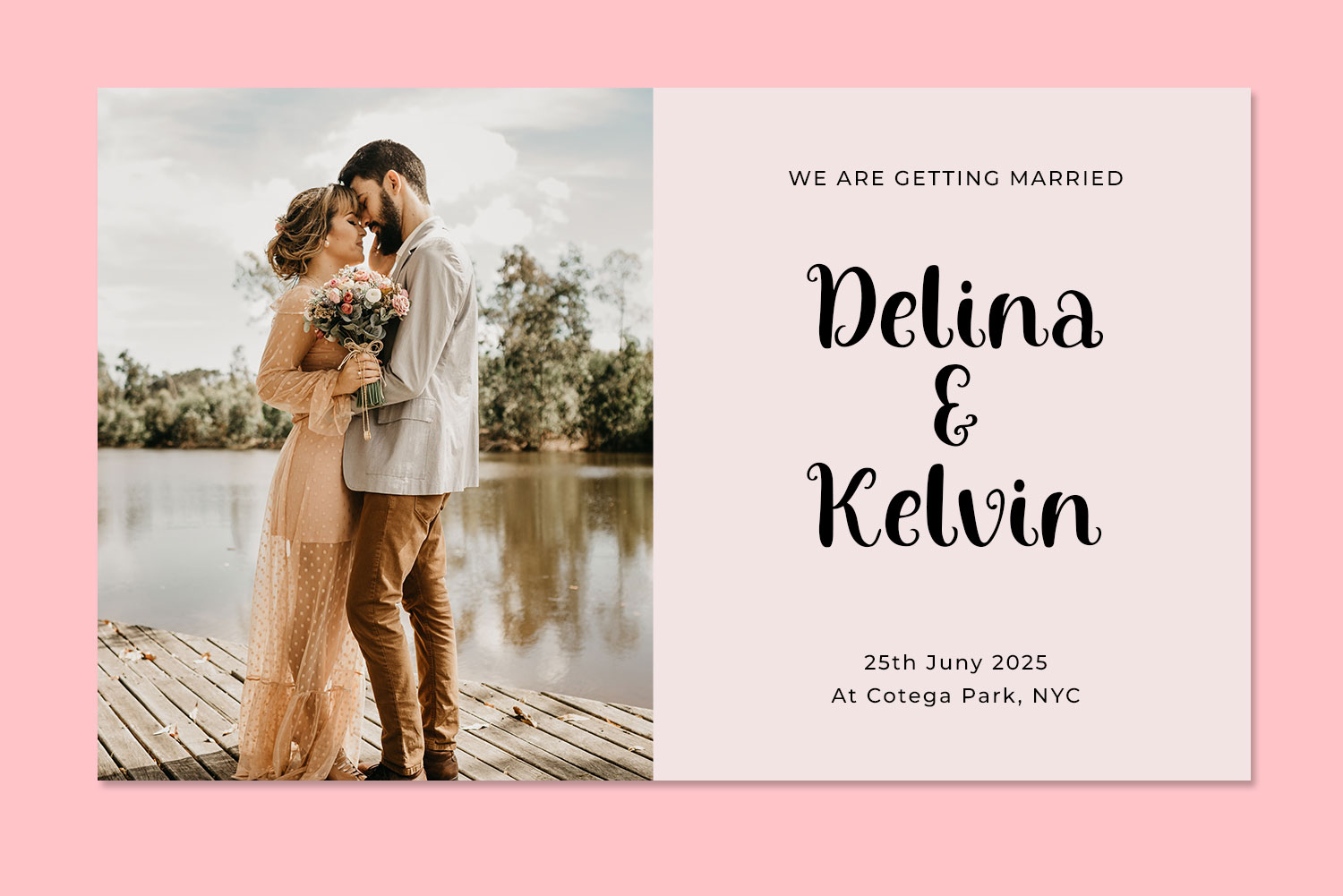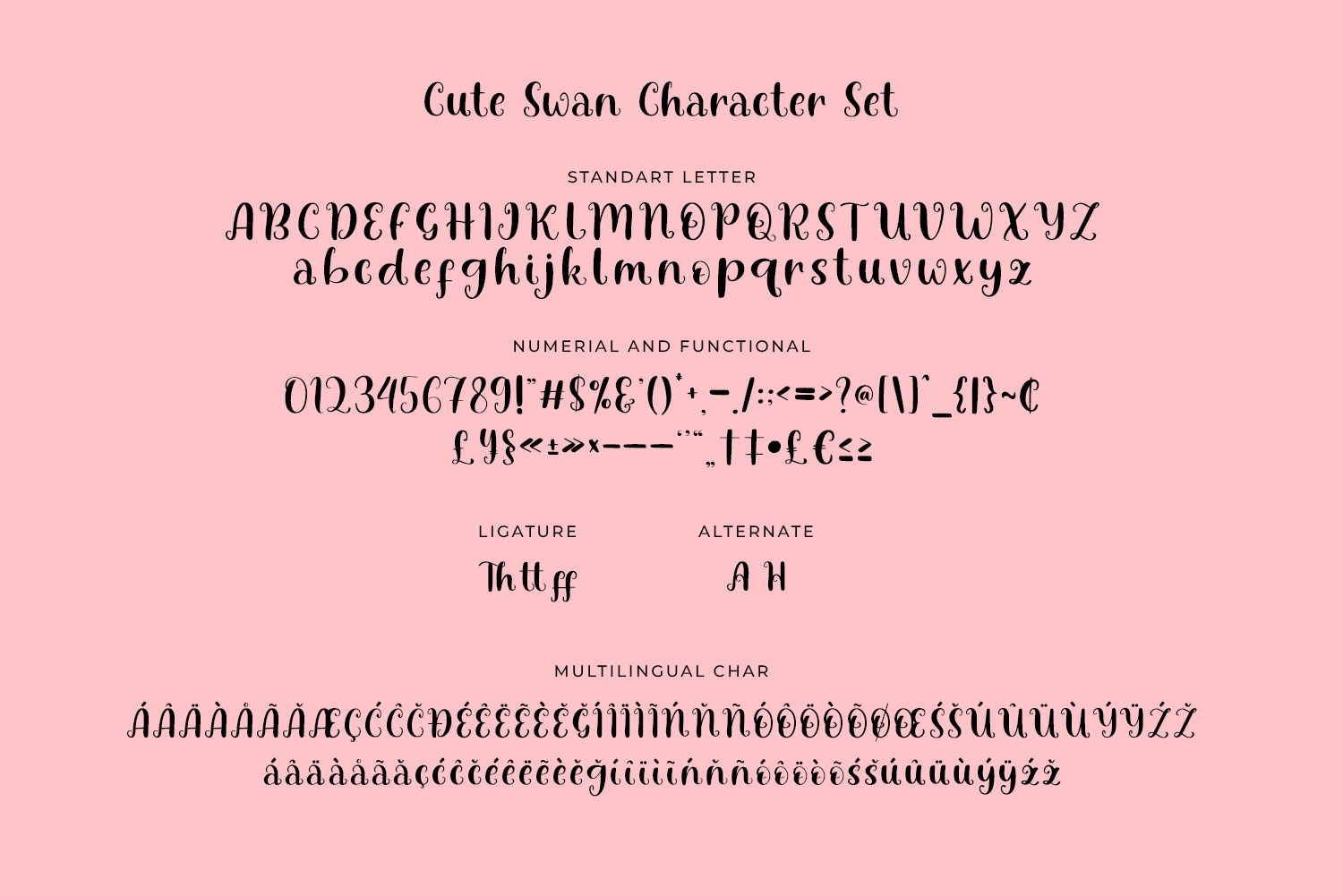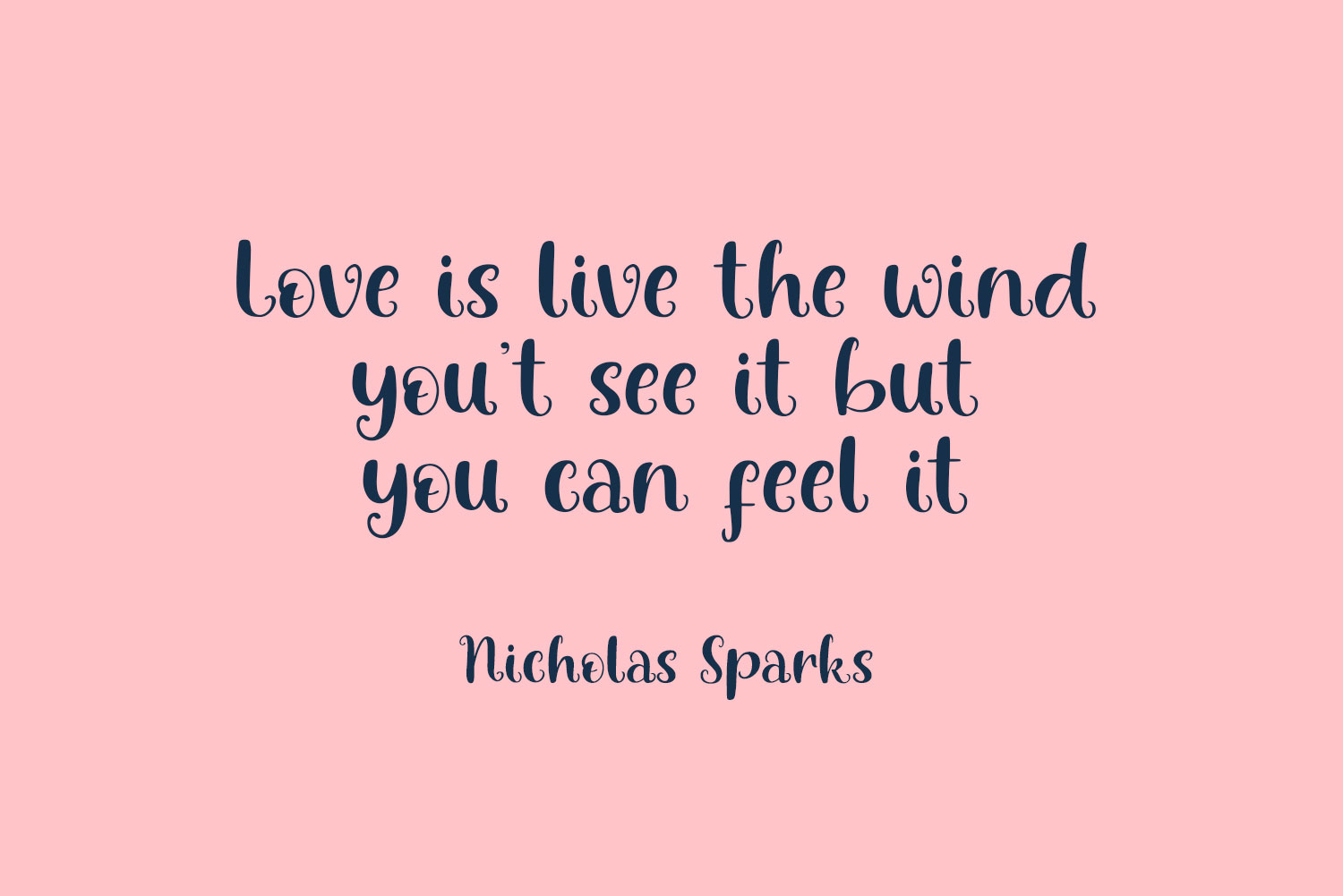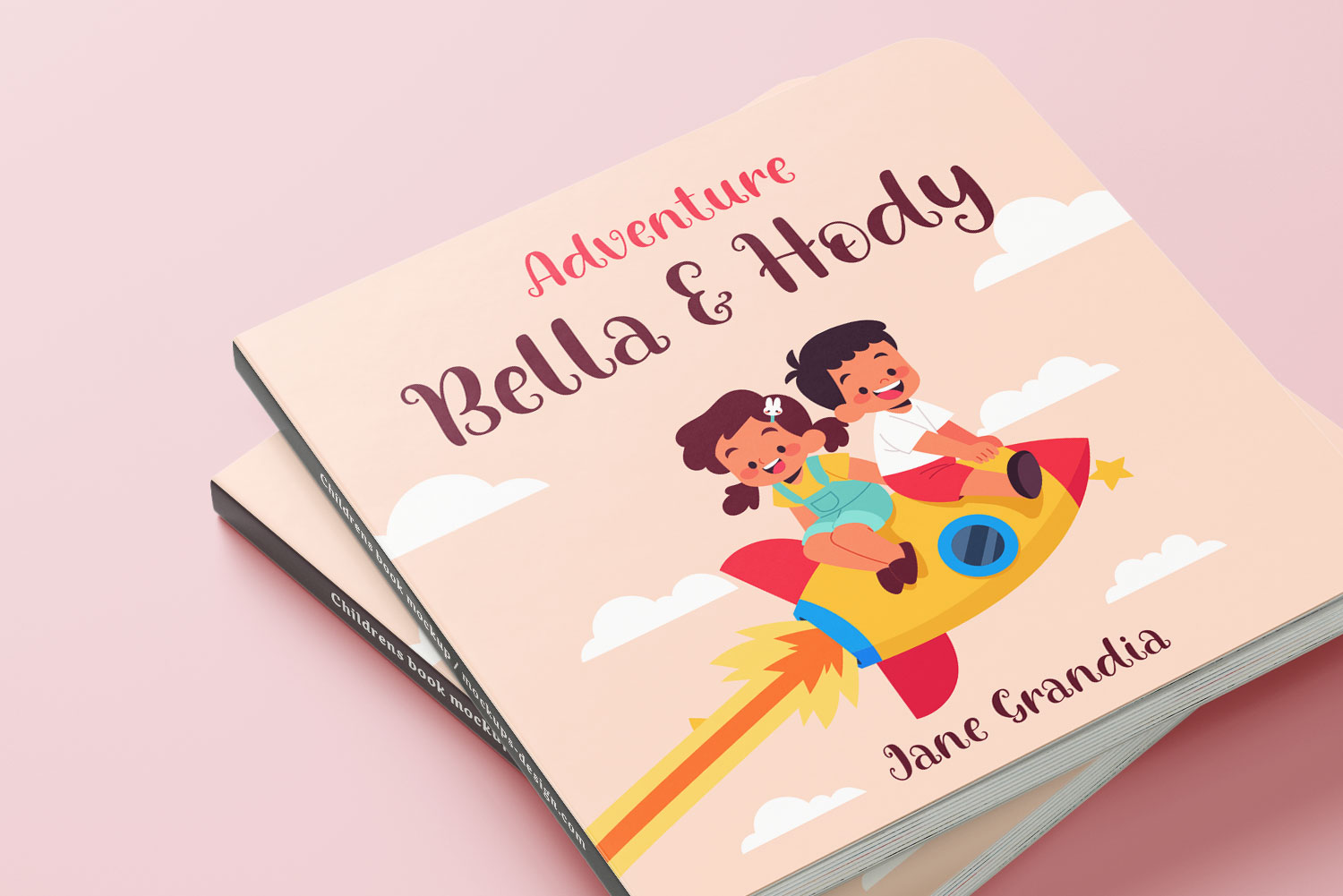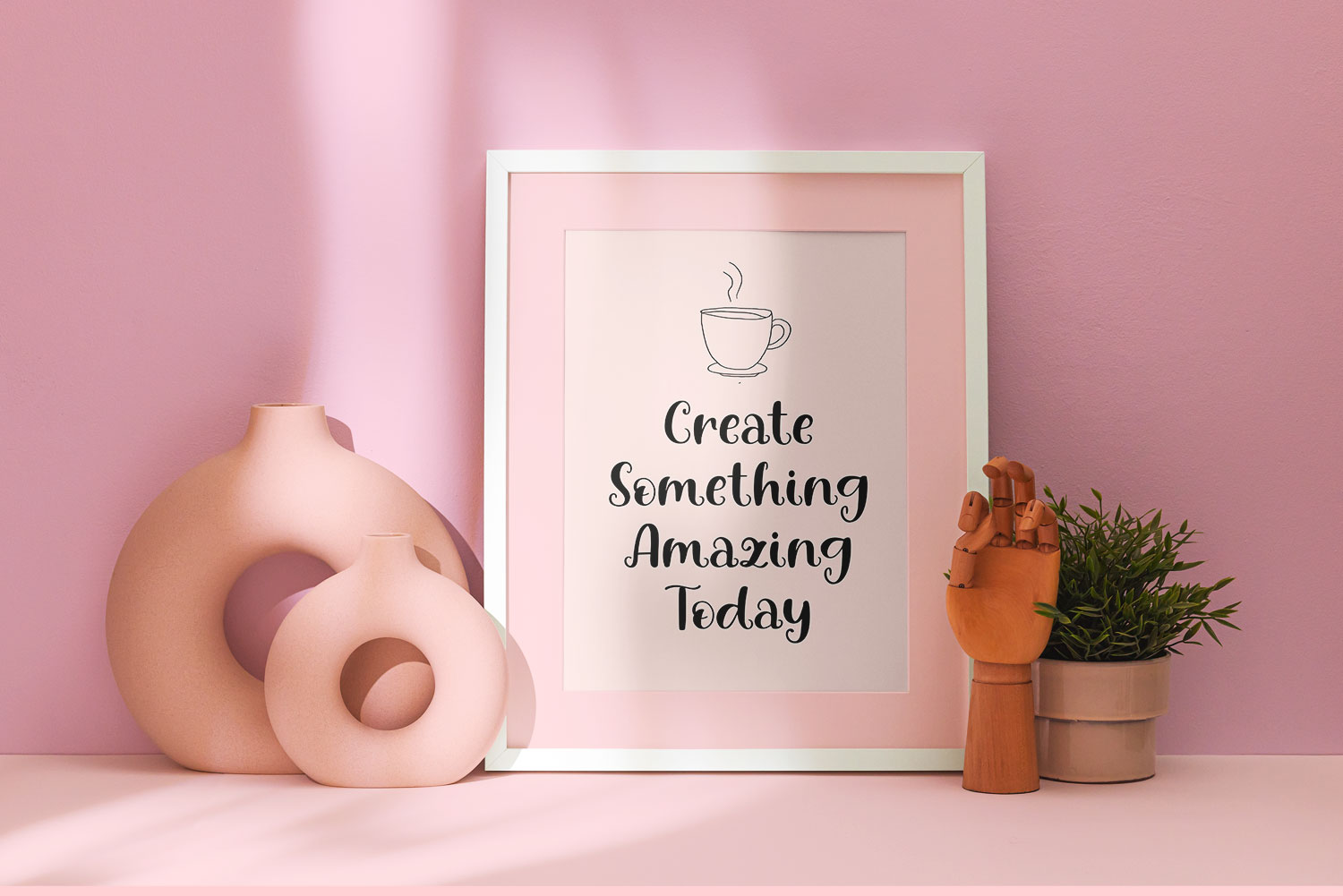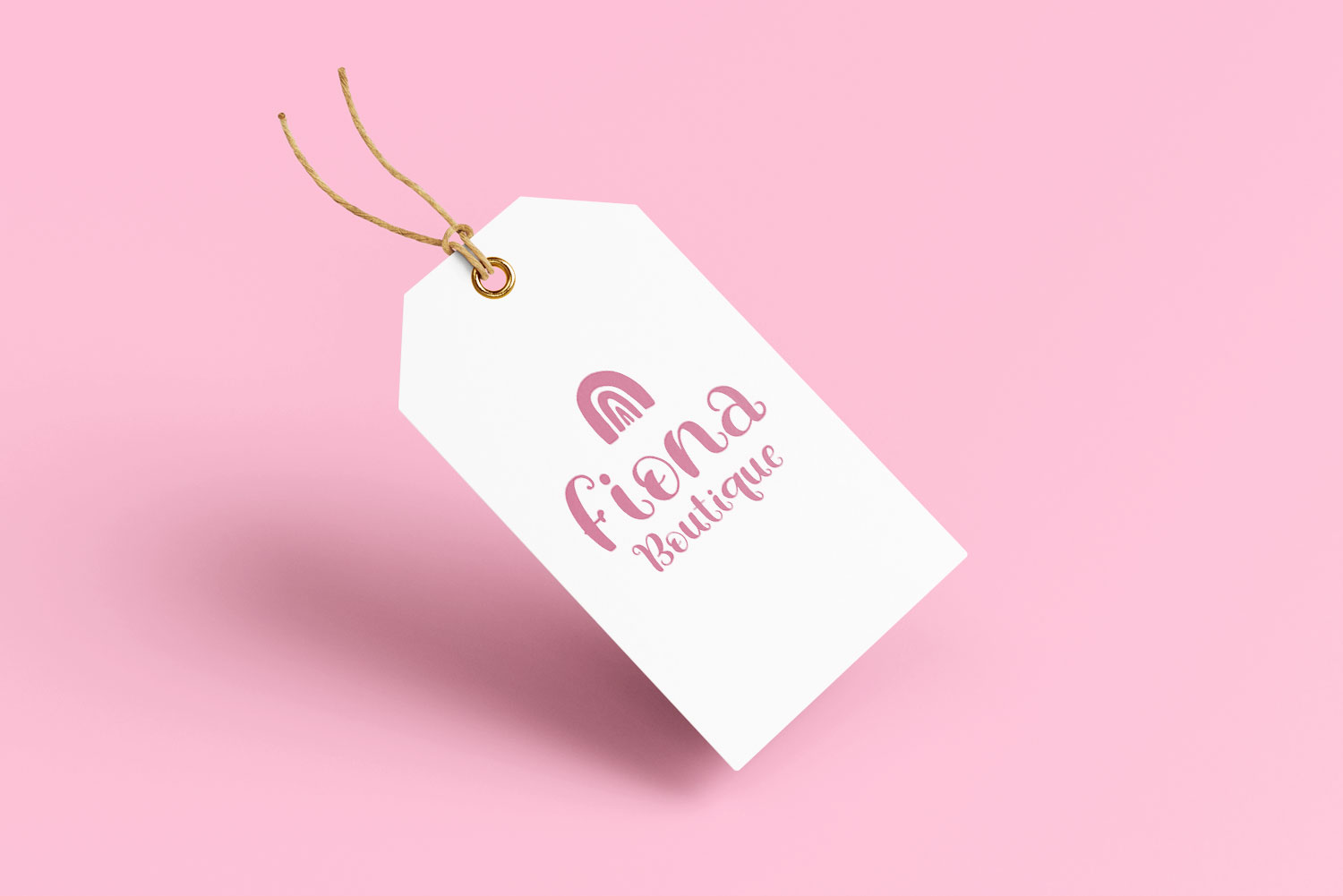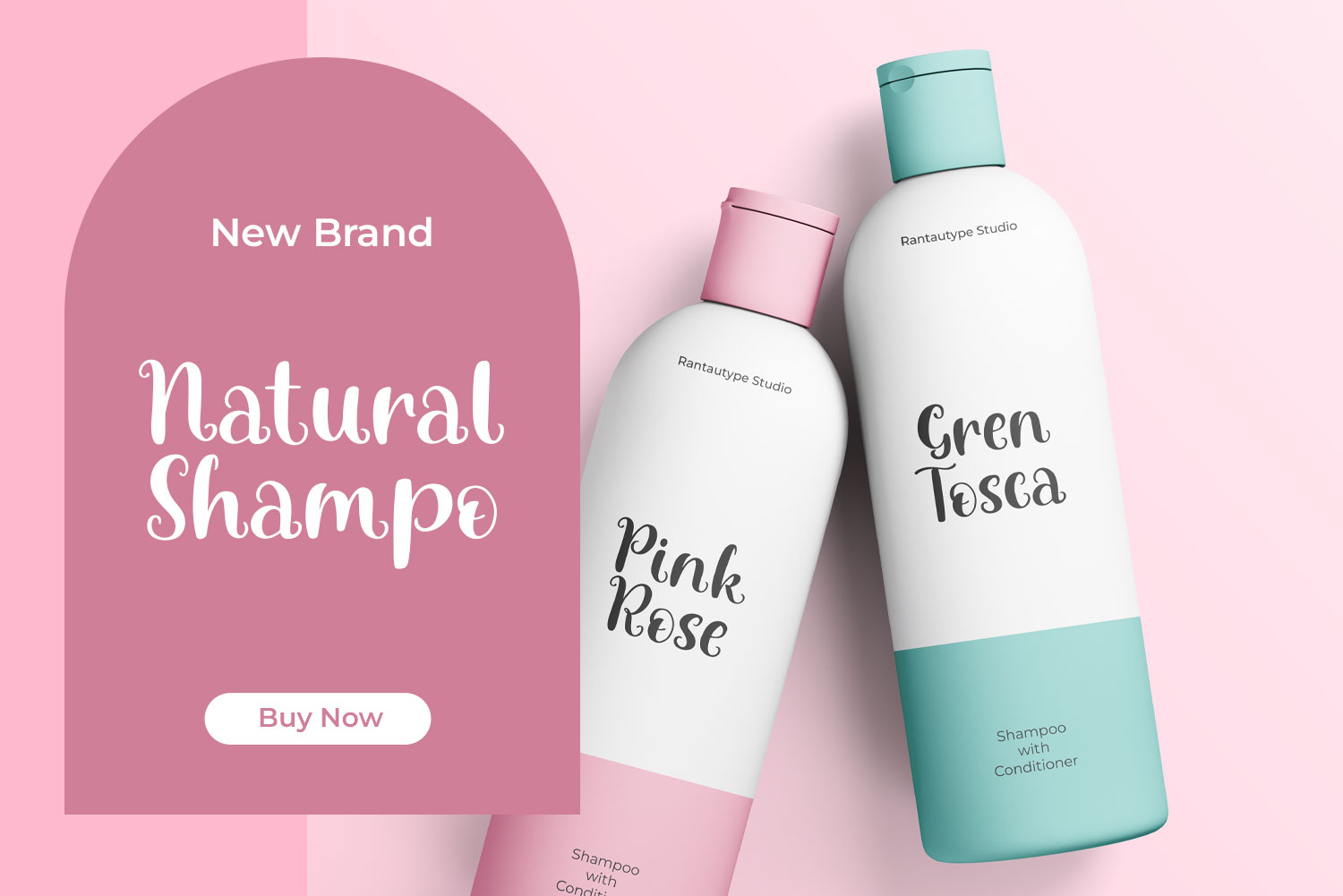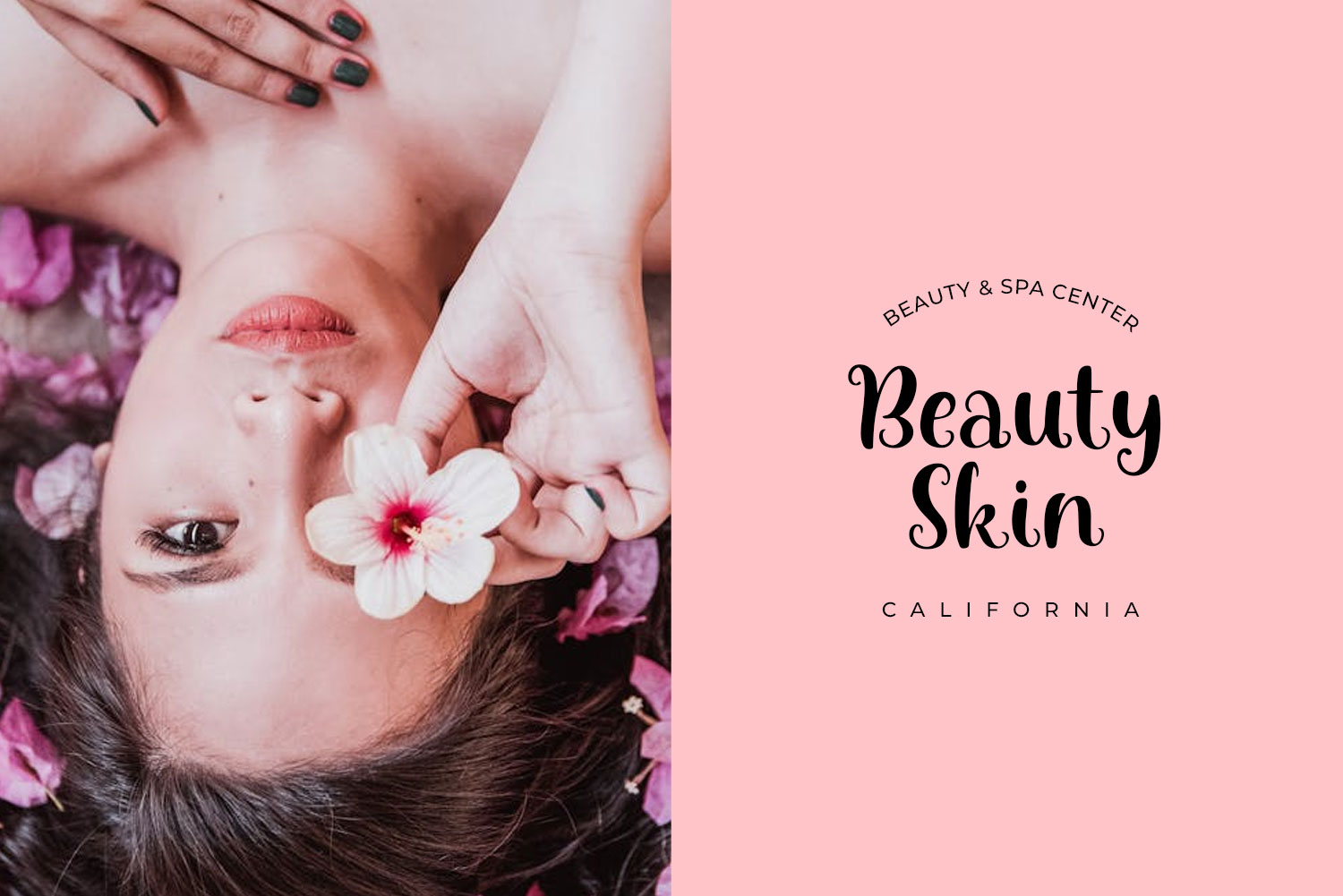
Queen Swan is handwritten font with swirel unique character. We make this font look elegant but playful, it’s great choice for make a stunning design project.
Queen Swan is a perfectly choice for any creative endeavor, great choice for watermark on photography, branding, wedding event, signature or signature logo design, quotes, album cover, magazine, business card and many other design project with handwriten taste.